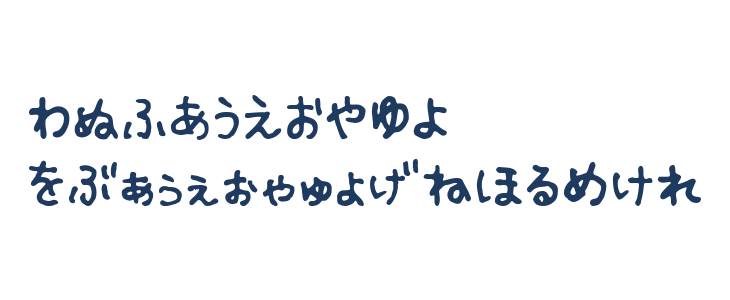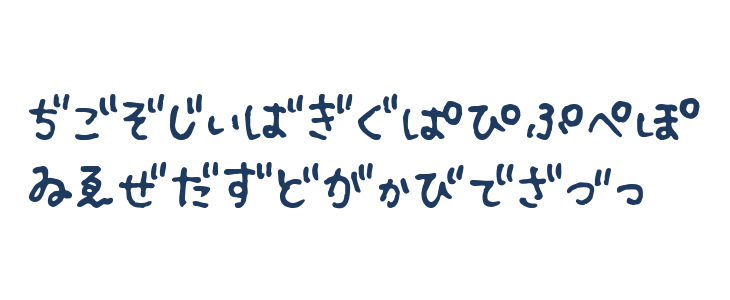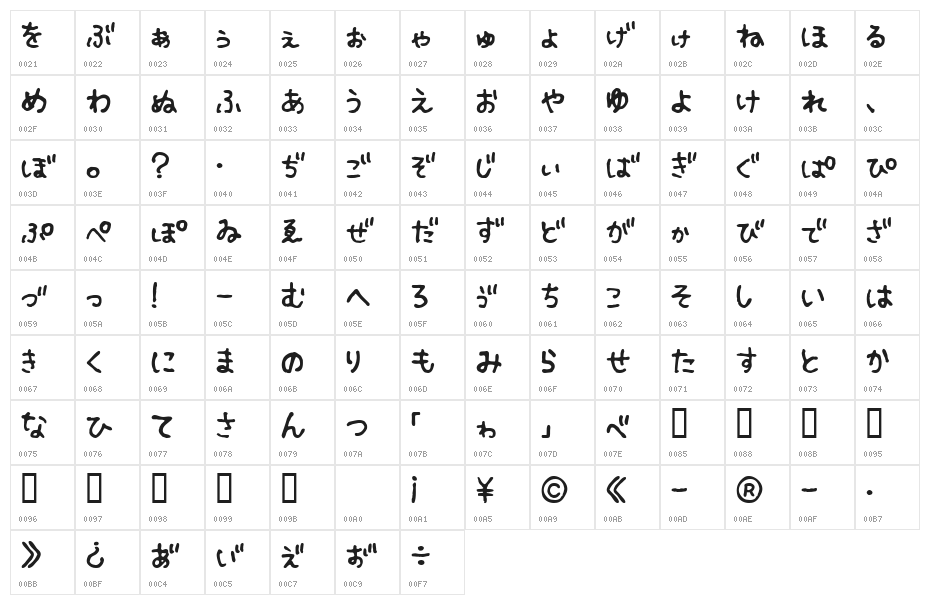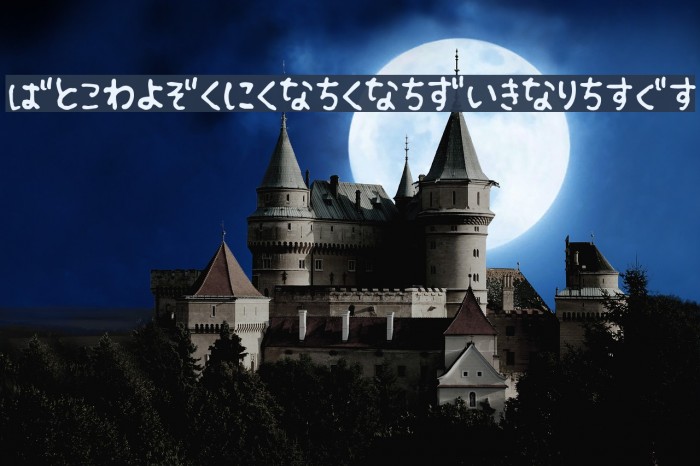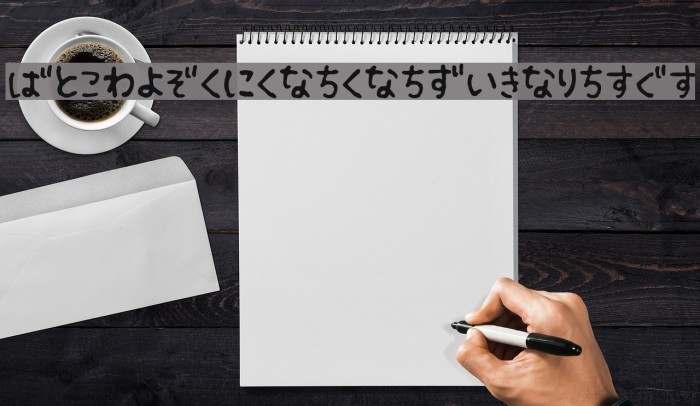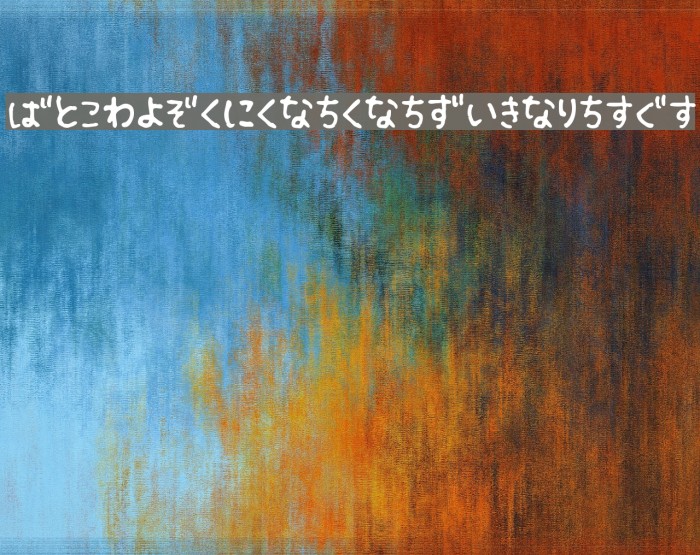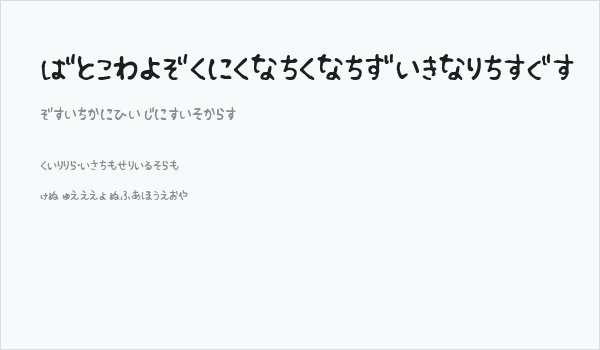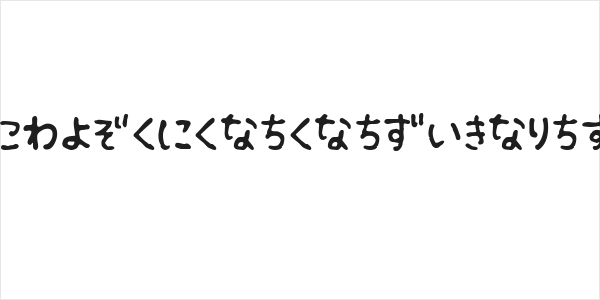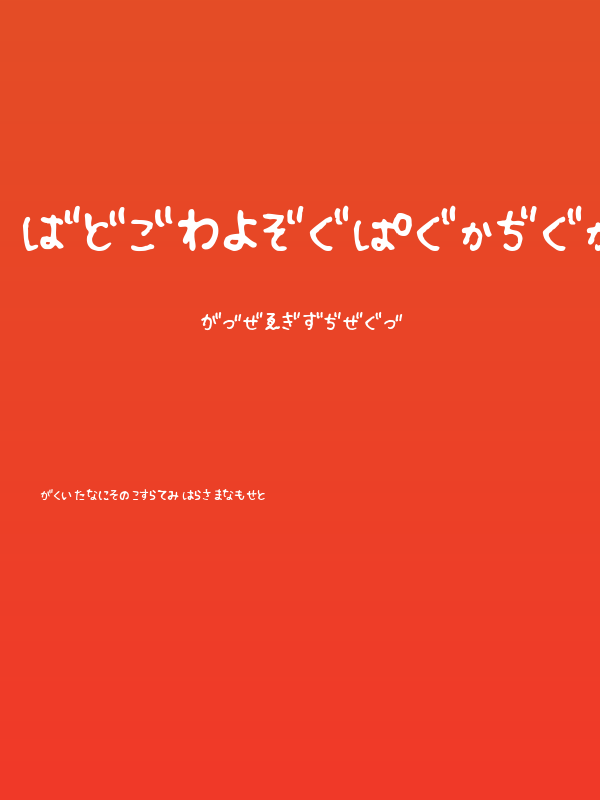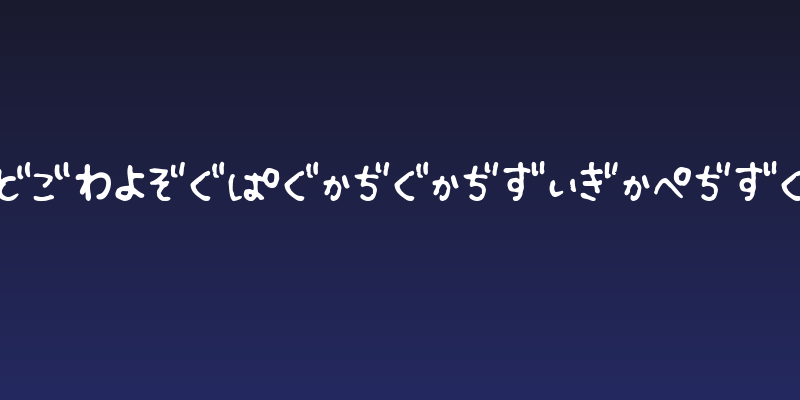
Fsb09ChihuahuaRegularHr Font
Fsb09ChihuahuaRegularHr Description
This font features a playful and whimsical style, characterized by its rounded and slightly irregular letterforms. The strokes are bold and have a hand-drawn quality, giving it a friendly and approachable appearance. The characters are well-spaced, ensuring readability while maintaining a casual aesthetic. This font is ideal for projects that require a touch of personality and creativity, such as children's books, playful branding, or informal invitations. Its unique style makes it stand out, adding a distinctive flair to any design.
| Proposed Projects | Children's books, playful branding, informal invitations, creative posters. |